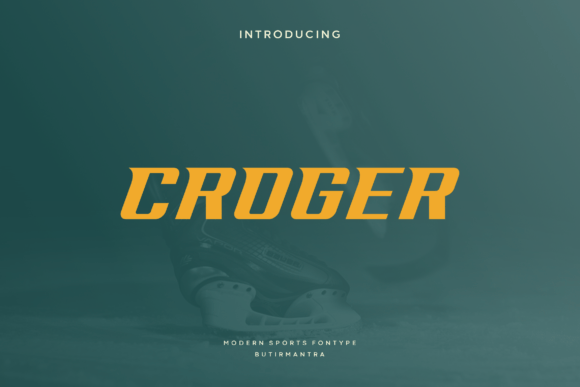
Introducing Croger Font, the game-changing sports display font that ignites passion and propels your designs to the pinnacle of excellence. With its wide italics, modern cutouts, and dynamic slant, Croger is not just a font; it's an adrenaline rush for your creative endeavors.
Visualize the electrifying energy of fast car racing sports titles, the heart-pounding intensity of running matches, the exhilarating speed of cycling competitions, and the sleek sophistication of automotive game logos and monograms. Croger Font captures the essence of these dynamic moments, translating them into captivating typographic expressions.
Whether you're a seasoned designer or just starting your creative journey, Croger Font is your passport to greatness. Its user-friendly design and limitless versatility empower you to effortlessly craft designs that resonate with your audience, leaving an indelible mark on their minds.
Unleash your imagination and let Croger Font ignite your designs with its captivating charm. Experience the thrill of creating eye-catching event posters that evoke a sense of anticipation and excitement. Design dynamic sports logos that embody the spirit of competition and leave a lasting impression. Craft stunning social media graphics that capture the essence of your brand and captivate your followers.
With Croger Font as your creative companion, the possibilities are endless. Its modern and dynamic aesthetic is the perfect complement to a wide range of design projects, from adrenaline-fueled sports themes to high-end fashion campaigns. Embrace the power of Croger Font and witness the transformation of your designs into masterpieces that command attention and inspire awe.